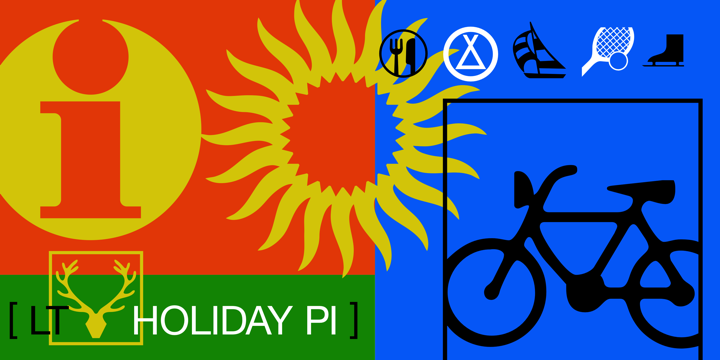
First seen on MyFonts: December 3rd, 2007 Linotype Holiday PiThis package contains three sets of symbols for a variety of vacation-related subjects, including sports, travel, hobbies, weather, dining, and entertainment. Not quite what you’re looking for? Try looking at more fonts like this. |